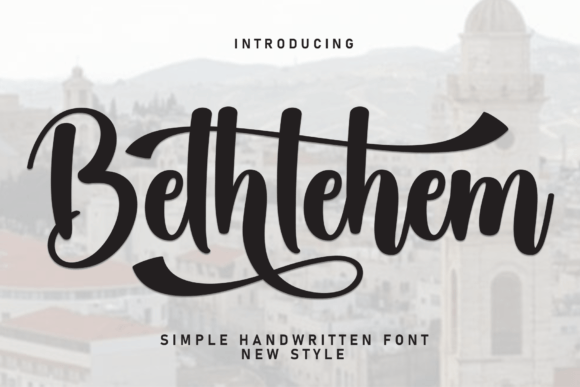
Dive into Bethlehem Font, the enchanting script font that will cast a magical spell on your designs. Crafted with meticulous care by andikastudio, this font exudes sweetness and friendliness, effortlessly bringing life to your creative visions.
With its natural and utterly unique style, Bethlehem Font seamlessly blends into a myriad of design concepts. Let your imagination run wild as you explore its boundless versatility. From elegant wedding invitations to whimsical branding, this font will elevate your projects to new heights.
Step into a world of elegance and charm as Bethlehem Font graces your designs. Its delicate strokes and graceful curves evoke a sense of sophistication, making it perfect for crafting eye-catching logos, stylish posters, and captivating social media graphics. Your designs will radiate an aura of timeless beauty that will leave a lasting impression on your audience.
Unleash your creativity with Bethlehem Font, the perfect tool for crafting heartfelt messages and personalized creations. Express your emotions with authenticity as you design breathtaking greeting cards, heartwarming love letters, and stunning quotes. Let the world witness the power of your words, beautifully adorned with the enchanting Bethlehem Font.
Journey beyond the ordinary with Bethlehem Font, the font that ignites your imagination and propels your designs to remarkable heights. It's a font that speaks to the heart, enchanting all who encounter it. Embrace the beauty of Bethlehem Font and embark on a creative odyssey that will leave you spellbound.